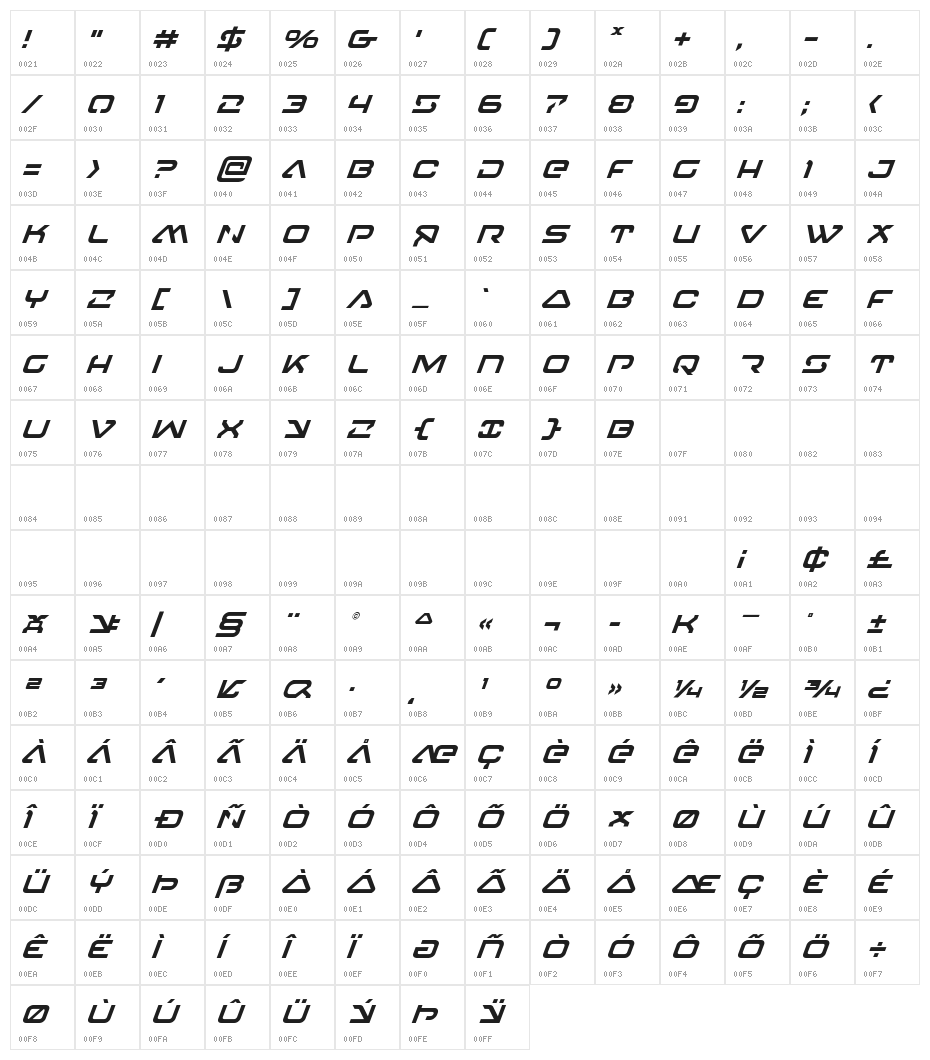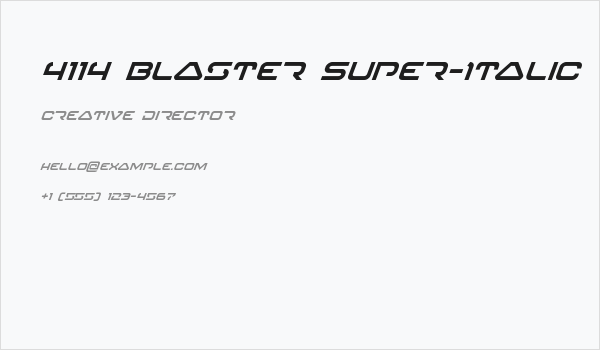
4114 Blaster Super-Italic Font
4114 Blaster Super-Italic Description
This font features a futuristic and dynamic design with sharp, angular lines and a forward-leaning italic style. The characters are bold and impactful, with a consistent stroke width that gives a uniform appearance. The uppercase and lowercase letters maintain a cohesive look, while the numerals and special characters complement the overall aesthetic. The font's design is reminiscent of sci-fi themes, making it suitable for projects that require a modern and edgy feel.